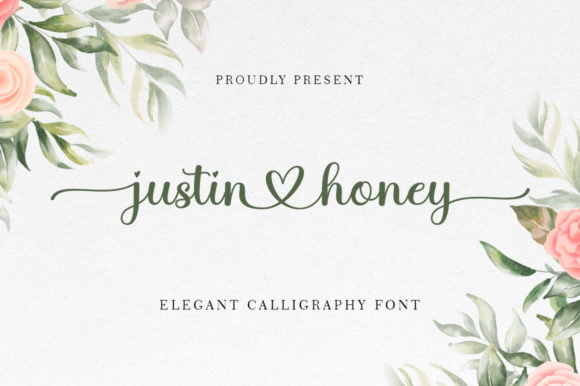
Indulge in the enchanting allure of Justine Honey, a captivating calligraphy typeface that will transform your designs into masterpieces. Each character dances gracefully along the baseline, evoking a sense of romance and whimsy. Experience the luxury and sophistication as Justine Honey elevates your creations, adding a touch of elegance to every project.
With its PUA encoding, unleash the boundless possibilities of Justine Honey. Effortlessly access a world of glyphs and ligatures, empowering you to express your creativity with unparalleled versatility. Whether you're designing logos, branding, invitations, or social media graphics, Justine Honey is the perfect choice to make a lasting impression.